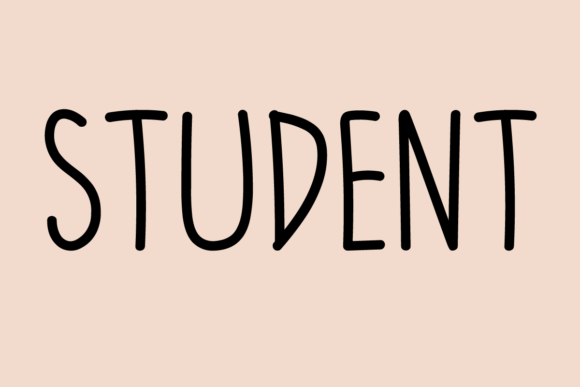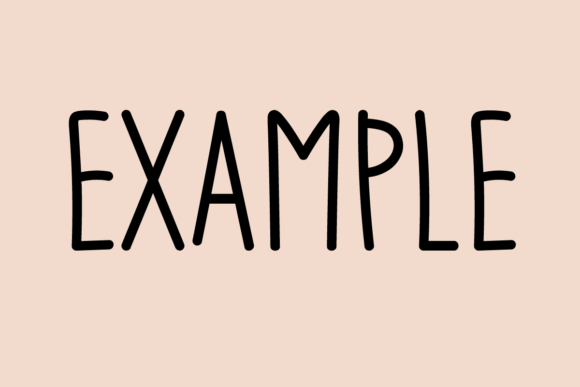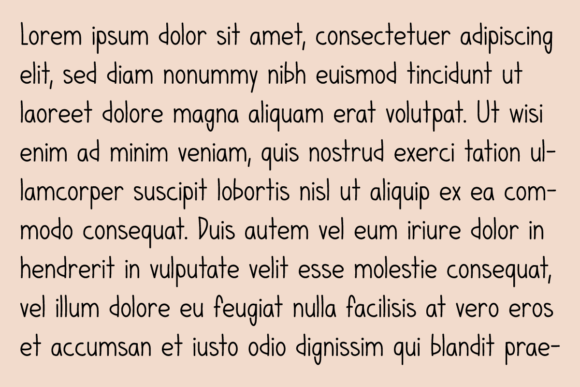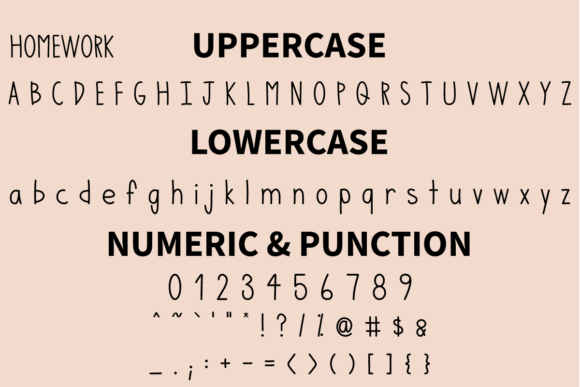
Homework Font
About Homework Font
Homeworkfont is a simple and friendly handwritten typeface that brings a whimsical and quirky charm to every design. Its approachable style makes it an excellent choice for designers looking to add warmth and personality to their projects. Whether you want to create logos, wedding invitations, or eye-catching advertisements, Homework delivers a distinctive, handmade touch.
A Whimsical and Friendly Handwritten Style
This font combines simplicity with playfulness. Homework features casual strokes and slightly quirky details, making your designs feel lively yet clean. Its friendly vibe fits perfectly with creative projects that want to communicate authenticity and approachability.
Ideal for Various Design Applications
Homeworkfont is incredibly versatile. Use it confidently in logos to give brands a personable identity. It shines on wedding invitations, adding an intimate and heartfelt feel. Quotes gain extra charm with its handwritten flair, and advertisements become more inviting. It’s also perfect for print materials and magazines that seek a fresh, handmade aesthetic.
Easy to Integrate into Your Projects
Thanks to its clean and legible style, Homework font fits both digital and print projects seamlessly. Whether you’re designing social media graphics or high-quality printed posters, this font adapts well to different formats and sizes.
Why Choose Homework Font?
Choosing Homework means opting for a font that blends friendliness with professionalism. Its whimsical yet simple design elevates your projects without overwhelming them. This font is a great asset for creatives who want to add character and a personal touch to their work.
Bring Your Designs to Life with Homework Font
Add Homeworkfont to your creative toolkit and watch your projects transform. Its playful elegance and versatile nature make it a favorite for a wide range of applications. Use it to craft memorable designs that connect and inspire.